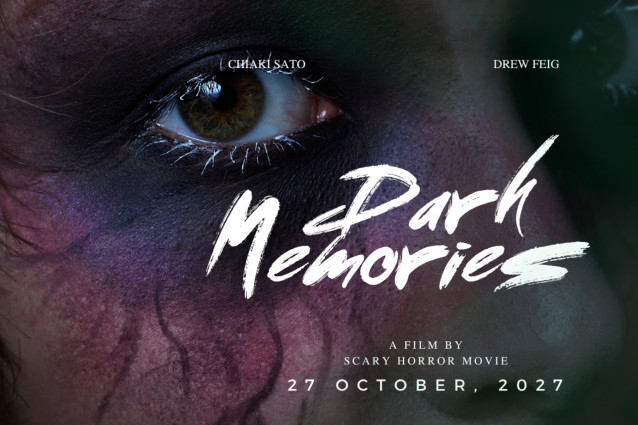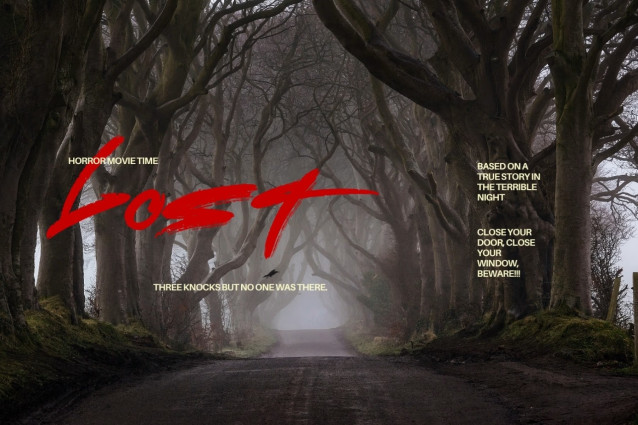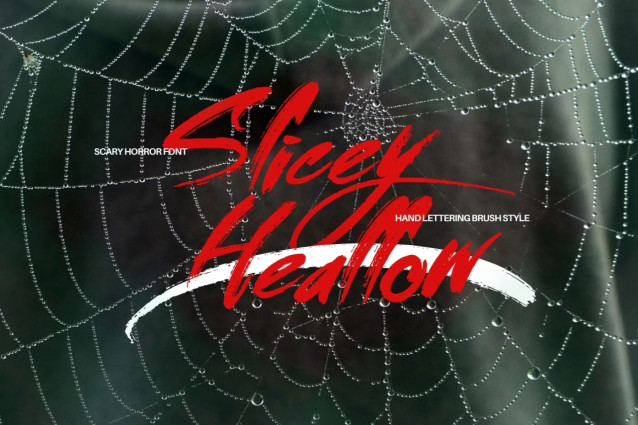
Introducing **Slicey Heallow – Scary Horror Font**
Slicey Heallow – Scary Horror Font which has a hand lettering brush style. So it looks natural like a handmade. This texture is very detailed. This font is suitable for logos, product branding, printable templates or for text overlay to any background image, also suitable for use in title design. Such as apparel, invitations, books tittle, stationery design, quotes, branding, greeting card, t-shirt, packaging design, poster and more!